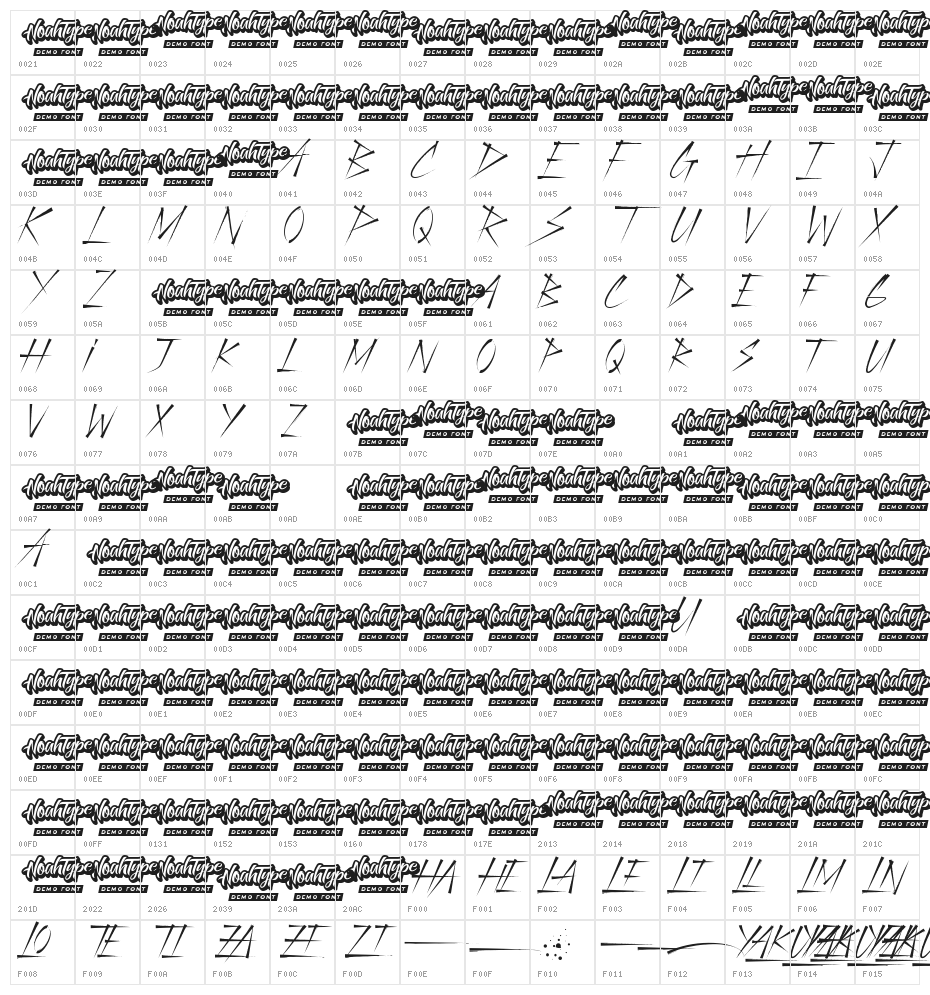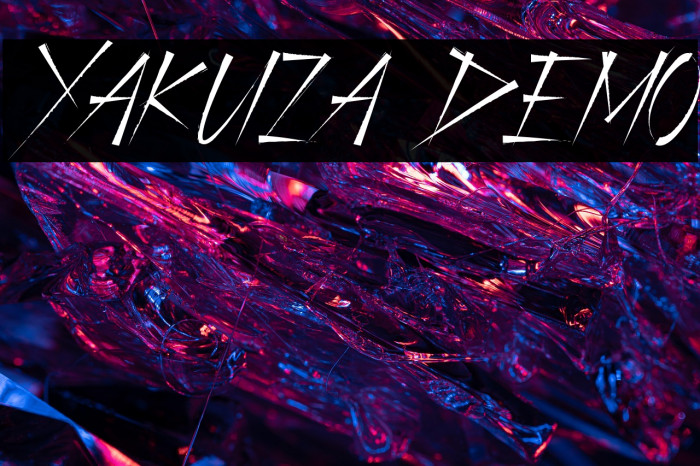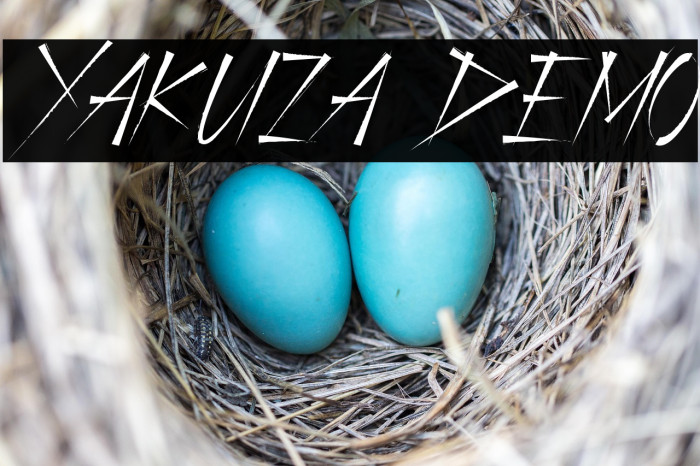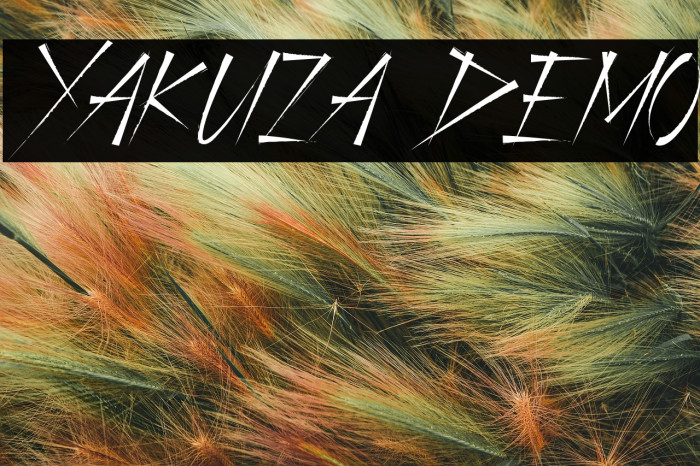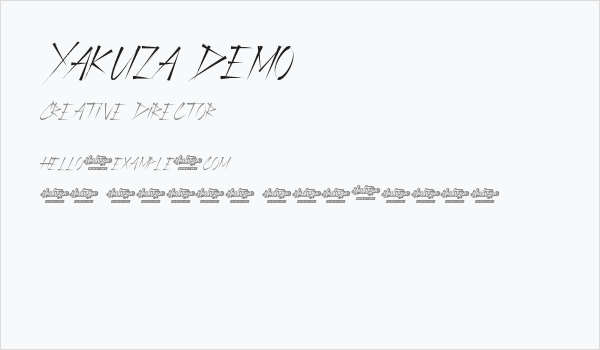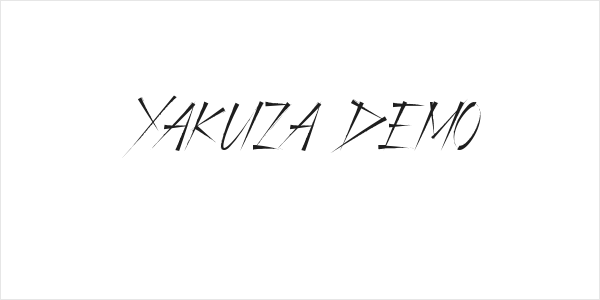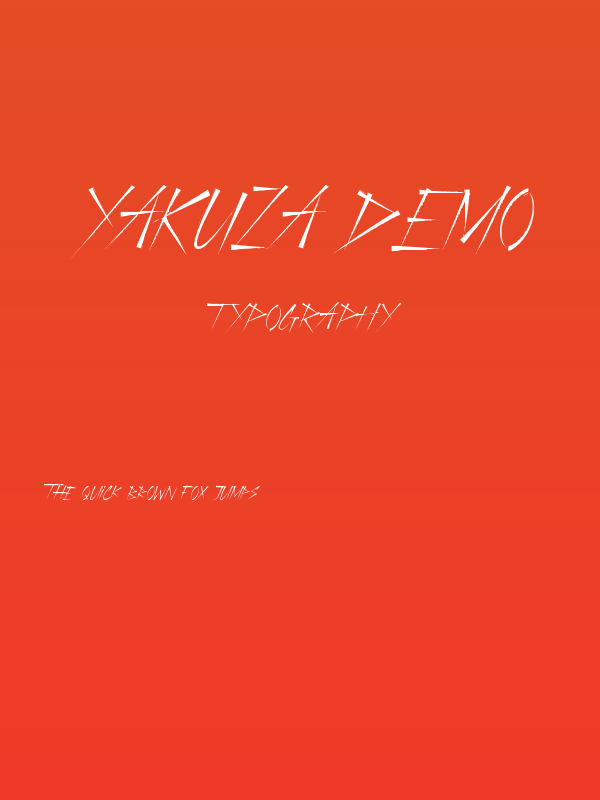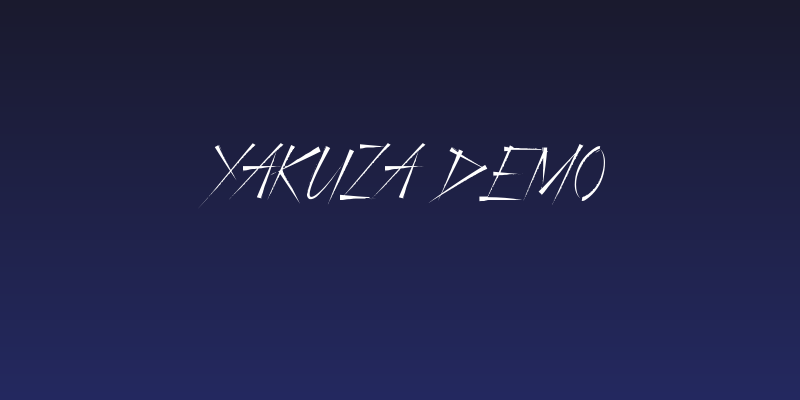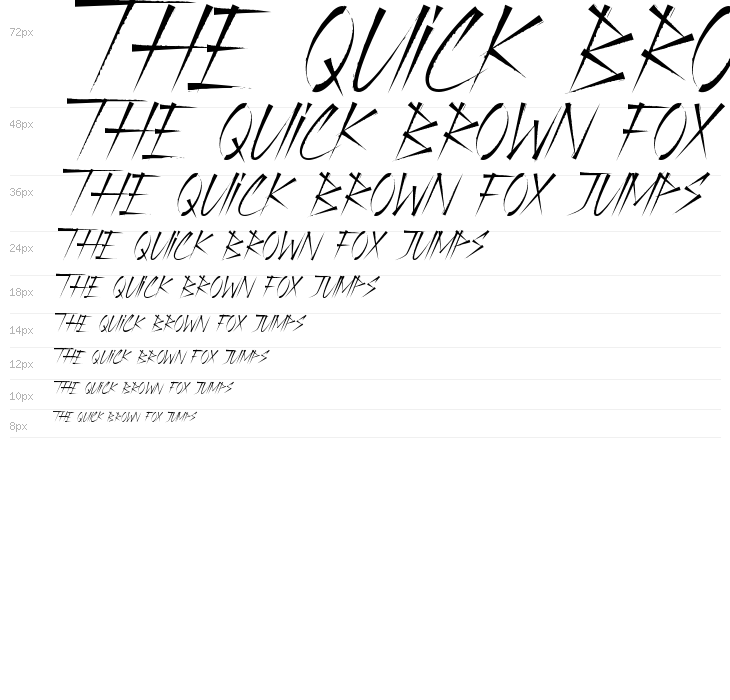
Yakuza Demo Font
Yakuza Demo Description
This font features a dynamic and edgy style, characterized by sharp, angular strokes and a sense of movement. The letters are crafted with a brush-like appearance, giving them a hand-drawn feel that is both bold and expressive. The uppercase and lowercase letters maintain a consistent style, with elongated lines and pointed edges that create a sense of urgency and intensity. The numbers and special characters follow the same aesthetic, ensuring a cohesive look across all elements. This font is ideal for projects that require a strong visual impact and a modern, rebellious vibe.
| Overall Style | Modern, Edgy |
| Proposed Projects | Ideal for music album covers, streetwear branding, posters, and edgy graphic designs. |